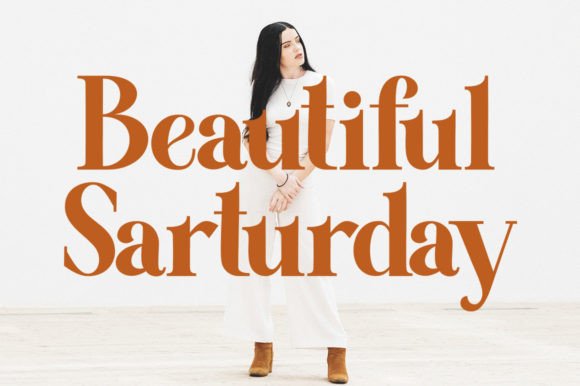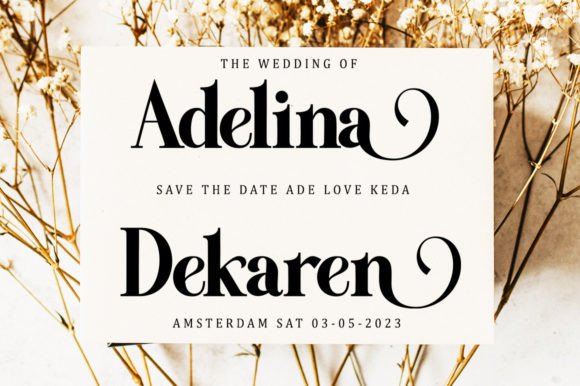
Bestline Font
Bestline is a stylish and modern serif font that exudes sophistication and elegance. With clean lines and subtle details, this font is perfect for creating designs that require a touch of refinement. Ideal for creating editorial layouts, book covers, and branding materials that require a contemporary look with a classic feel.